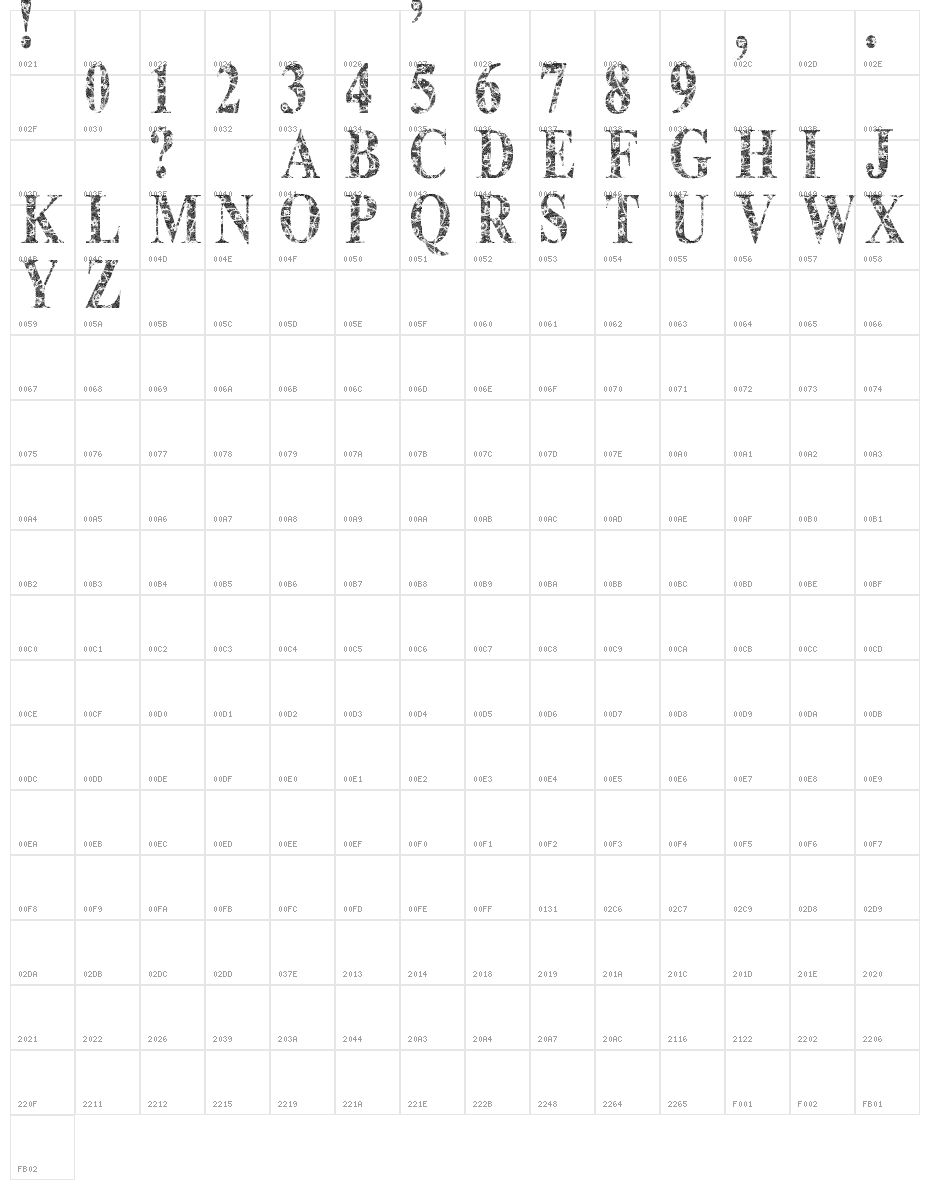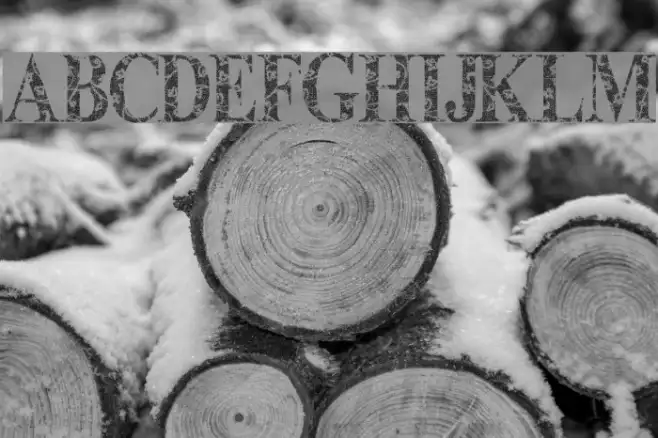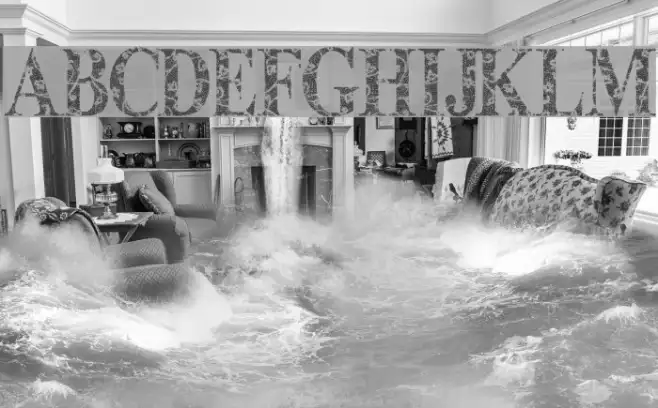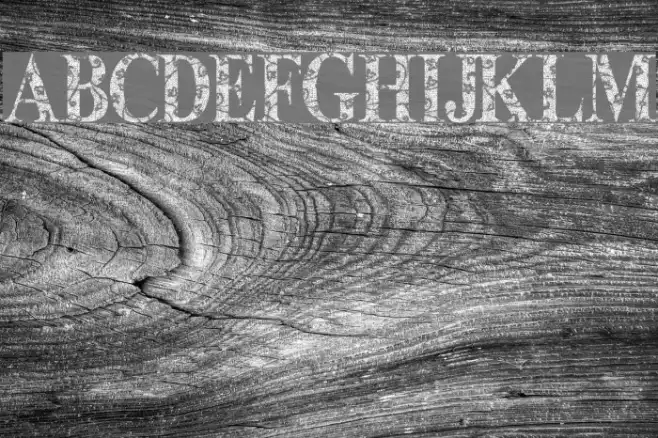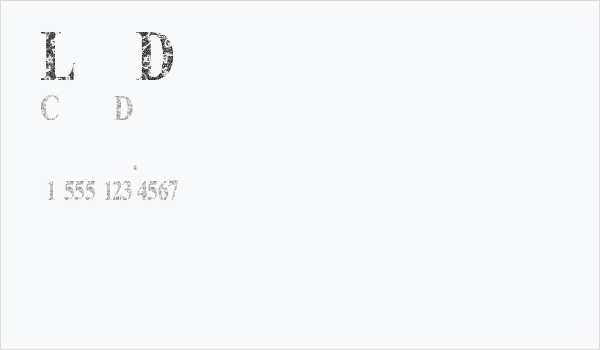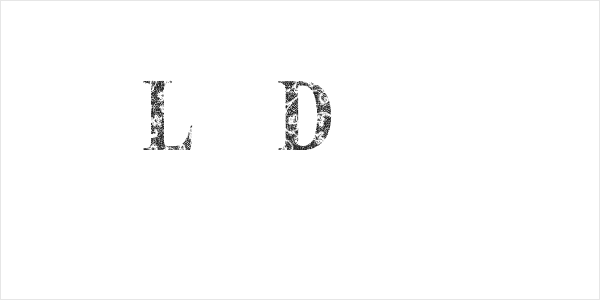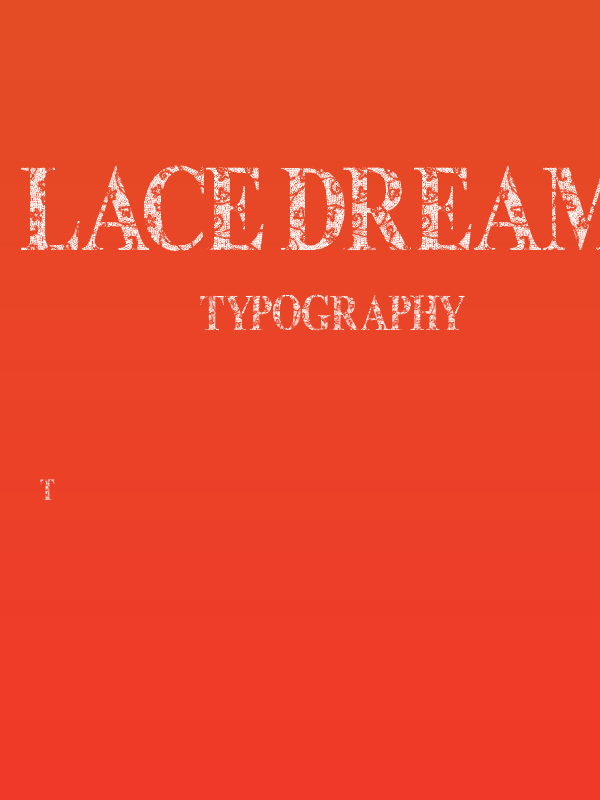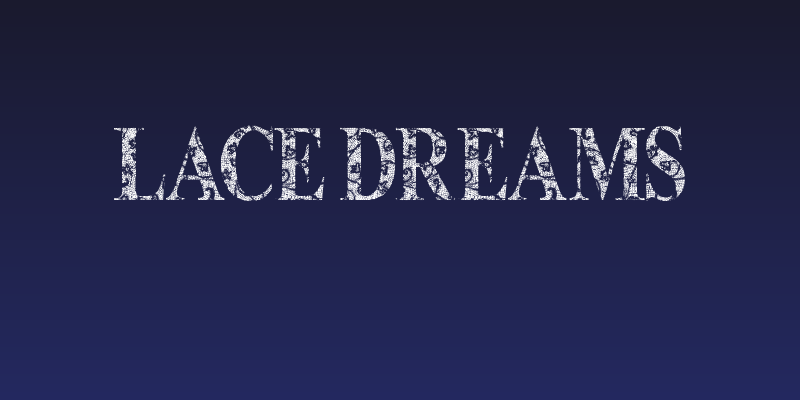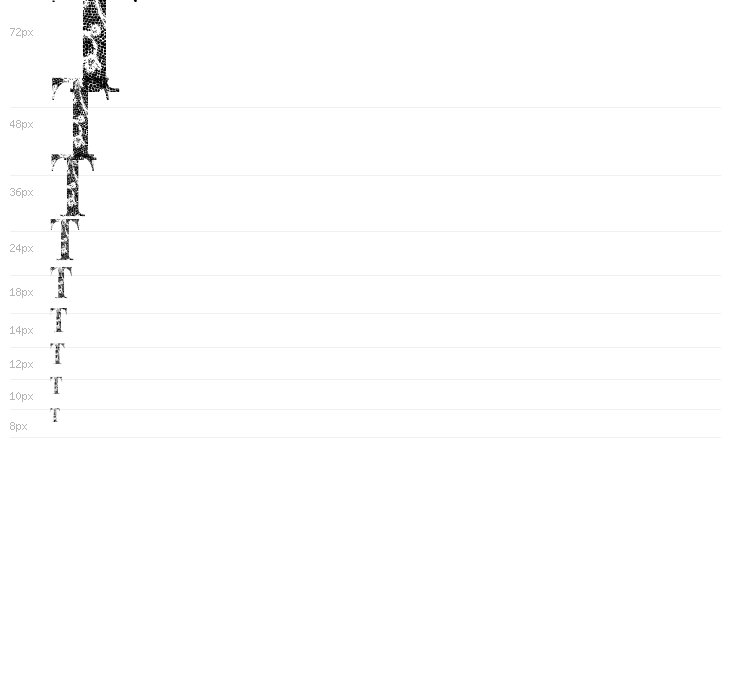
Lace Dreams Font
This font features an intricate lace-like pattern within each character, creating a delicate and ornate appearance. The uppercase letters are bold and prominent, with a textured fill that mimics the look of lace fabric. The numbers and special characters follow the same design, ensuring a cohesive look across all elements. The font's unique style makes it stand out, offering a blend of elegance and vintage charm. Its decorative nature is ideal for projects that require a touch of sophistication and artistry.
An ornate, lace-patterned font with a vintage and elegant style.
- Font: Lace Dreams
- Proposed Projects: Ideal for wedding invitations, fashion branding, vintage-themed posters, and decorative signage.
- Overall Style: Vintage, Decorative
- Use Case: Logos, Headlines, Invitations